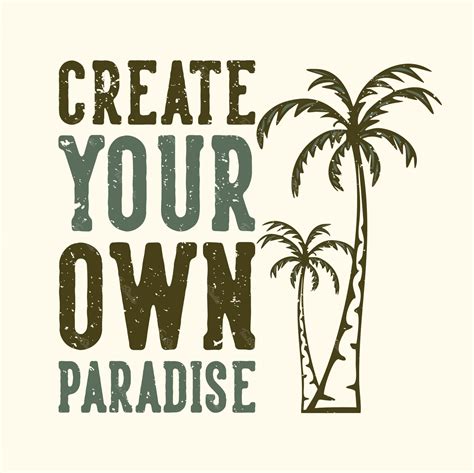
Discover Bahamas-Inspired Fonts: Tropical Typography
Hey there, design enthusiasts and creative folks! Ever found yourself staring at a blank canvas, desperately searching for that perfect font that screams sunshine, white sand beaches, and crystal-clear turquoise waters? Well, guys, you’re in for a treat! We’re about to dive deep into the vibrant world of Bahamas-inspired fonts , exploring how tropical typography can totally transform your projects, making them pop with island charm and laid-back elegance. Forget boring default typefaces; it’s time to infuse your designs with the spirit of paradise! Whether you’re crafting a new brand identity, designing stunning invitations for a beach wedding, or just sprucing up your social media, choosing the right Bahamas-themed font can make all the difference. These fonts aren’t just letters; they’re an experience, a whisper of warm breezes, and a splash of vibrant culture. They evoke feelings of relaxation, luxury, and adventure, making them incredibly powerful tools in your design arsenal. We’ll explore everything from the subtle nuances that define these styles to practical tips on how to best integrate them into your workflow. So grab your metaphorical sunglasses, and let’s embark on this tropical typographic journey together! We’re not just talking about any old fonts here; we’re talking about typefaces that carry the very essence of the Bahamas—its breathtaking natural beauty, its rich cultural tapestry, and its undeniable allure. By the end of this article, you’ll be armed with all the knowledge you need to pick and use these magnificent fonts like a pro, ensuring your designs not only look good but also feel good, resonating with a genuinely joyful, sun-kissed vibe. Let’s make your designs sing with the rhythm of the islands!
Why Bahamas-Inspired Fonts Are Your Next Design Secret
Bahamas-inspired fonts aren’t just a trend; they’re a vibe , an entire aesthetic encapsulated in curves and serifs. When you choose a font that channels the spirit of the Bahamas, you’re not just selecting a typeface; you’re inviting a whole world of warmth, relaxation, and exotic beauty into your design. Think about it: what feeling does the word “Bahamas” conjure up for you? Probably sun-drenched beaches, swaying palm trees, vibrant coral reefs, and perhaps a refreshing cocktail in hand, right? These fonts aim to capture exactly that feeling, translating the sensory experience of the islands into visual form. They bring a unique blend of casual elegance and playful charm, making your design instantly more inviting and memorable. For businesses, this means creating a brand identity that instantly resonates with luxury, vacation, and escape—perfect for travel agencies, resorts, beachwear brands, or even anyone looking to add a touch of summery cheer to their marketing materials. Imagine a logo for a boutique hotel, crafted with a graceful script font that subtly hints at ocean waves and gentle breezes; it immediately transports your audience, telling a story before they even read a single word. This isn’t just about pretty letters; it’s about strategic storytelling through typography. The subtle nuances in a Bahamas-inspired font—perhaps a slightly elongated tail on a ‘y’, or a gentle curve on a ’s’ that mimics a breaking wave—can evoke powerful emotions and associations. They are designed to stand out from the generic, often overused typefaces, giving your project a distinctive edge. Moreover, in an increasingly crowded digital landscape, uniqueness is paramount. A truly distinctive font can become a signature element of your brand, making you instantly recognizable and helping you forge a deeper connection with your audience. These fonts are often characterized by their organic flow, sometimes with a touch of whimsy, or a sophisticated script that suggests handwritten notes from a tropical getaway. They are versatile too, working beautifully across various mediums, from sophisticated print ads to vibrant social media graphics. So, guys, if you’re looking to infuse your designs with an undeniable sense of paradise, a dash of luxury, and a whole lot of personality, then diving into the world of Bahamas-inspired fonts is definitely your next smart move. They don’t just communicate words; they communicate an entire experience, a dream of island life that captivates and charms. It’s about creating an emotional connection, transforming a simple piece of text into an artistic expression of paradise, one elegant character at a time. Seriously, these fonts are like a mini-vacation for your eyes and your audience’s perception. They have the power to elevate a mundane message into something truly special and unforgettable.
Unpacking the Charm: What Makes a Font Truly Bahamian ?
So, what actually makes a font feel Bahamian or tropical ? It’s not just about slapping a palm tree emoji next to some text, guys! It’s a thoughtful blend of specific design elements, cultural influences, and a certain visual language that evokes the warmth and beauty of the islands. The essence of Bahamian typography lies in its ability to transport you, to make you feel the sun on your skin and the sand between your toes, simply by looking at the characters. Often, these fonts draw inspiration from natural elements: the gentle curves of ocean waves, the swaying fronds of a palm tree, the smooth texture of seashells, or the vibrant hues of tropical flora. You’ll notice many Bahamas-inspired fonts feature soft, flowing lines, avoiding harsh angles or rigid structures. Script and handwritten styles are particularly popular because they convey a sense of personal touch, relaxation, and unhurried island life. Imagine a handwritten postcard from a Bahamian getaway – that’s the kind of authentic, inviting feel these fonts aim for. They often have a relaxed baseline, a slightly imperfect, organic quality that feels handmade and genuine. Beyond script, you might find sans-serif fonts with rounded edges, a touch of casualness, or even decorative elements that subtly incorporate island motifs like a tiny flourish resembling a fish fin or a sunburst. Color, while not directly part of the font’s design, plays a huge psychological role in how we perceive tropical typography. When you pair a flowing, Bahamas-themed font with a palette of ocean blues, sandy beiges, coral pinks, and lush greens, the effect is amplified, creating an undeniable island aesthetic. The cultural aspect also plays a significant role. The Bahamas has a rich history, blending African, European, and indigenous influences. This cultural melting pot can subtly inform font design, perhaps through intricate patterns, bold strokes, or a celebratory rhythm in how the letters interact. Think of the vibrant Junkanoo parades – while fonts don’t directly replicate that, they can capture a sense of lively celebration and unique artistry. Furthermore, the overall legibility and friendliness of these fonts are key. They are generally designed to be approachable and easy on the eyes, mirroring the welcoming nature of the Bahamian people and the relaxed pace of island life. They communicate a message of comfort, enjoyment, and beauty, making them perfect for any project that aims to evoke a positive, escapist feeling. The goal is to create a visual harmony that, even without explicit imagery, tells a compelling story of sun-soaked days and starlit nights. It’s truly fascinating how a collection of letters can carry so much character and convey such a specific, enchanting atmosphere. So, next time you’re browsing for a font, try to see if it whispers “island breeze” to you; that’s when you know you’ve found a truly Bahamian gem.
Dive Into Styles: Top Bahamas Themed Fonts for Every Project
Alright, folks, now that we’ve got a handle on why Bahamas-inspired fonts are so awesome and what makes them tick, let’s explore some of the specific styles you can hunt down for your next project. This isn’t a one-size-fits-all situation; the world of tropical typography is as diverse as the Bahamian archipelago itself! Each style offers a different flavor of island charm, allowing you to perfectly match the tone and message of your design. Whether you’re aiming for sophisticated luxury, playful fun, or organic simplicity, there’s a Bahamas-themed font out there just waiting to make your vision come alive. We’re going to break down some of the most popular and effective categories, giving you a clearer idea of what to look for and how each type can be uniquely applied. From elegant scripts that whisper tales of grand resorts to bold display fonts that shout “adventure,” the options are truly exciting. Get ready to discover your new favorite typeface!
Effortless Elegance : Script and Handwritten Bahamian Fonts
When we talk about capturing that quintessential Bahamas island charm , script and handwritten fonts are often the first to come to mind, and for good reason, guys! These typefaces exude a personal, bespoke feel that instantly conjures images of handwritten postcards, exclusive resort branding, or elegant beach wedding invitations. The beauty of Bahamian script fonts lies in their fluidity and organic movement, often featuring ligatures and swashes that mimic the gentle ebb and flow of ocean waves or the graceful curves of palm fronds in the breeze. They aren’t rigid or mechanical; instead, they have a natural, almost spontaneous quality that feels incredibly inviting and authentic. Think about the feeling of luxury and personalization you get from a beautifully penned note – that’s the essence these fonts deliver. They work wonders for projects that require a touch of sophistication mixed with a relaxed, vacation-like vibe. Picture a high-end travel brochure, a logo for a boutique beach hotel, or the masthead of a lifestyle blog focusing on exotic destinations. The soft, connecting strokes and varied baselines often found in these fonts give them a dynamic, lively character, ensuring that your text never looks static or dull. Many handwritten Bahamas fonts incorporate a slightly whimsical or imperfect touch, which only adds to their charm and authenticity, suggesting a human element that’s often missing in more sterile, geometric typefaces. This subtle imperfection makes them feel more approachable and genuine, like a friendly local welcoming you to their island home. They are fantastic for conveying warmth, intimacy, and a sense of effortless style. However, a word to the wise: while gorgeous, script fonts can sometimes be less legible for large blocks of text, especially at smaller sizes. They truly shine when used for headings, subheadings, logos, short quotes, or signature elements where their intricate details can be appreciated without hindering readability. When selecting one, consider its overall readability and how well its unique flourishes complement your brand’s message. Pair them with a clean sans-serif for body text, and you’ve got a winning combination that balances flair with function, creating a cohesive and utterly enchanting design that truly encapsulates the effortless elegance of a Bahamian escape. So, if you’re aiming for a design that feels both luxurious and genuinely warm, these script and handwritten beauties are definitely your go-to!
Bold & Beautiful : Sans-Serif and Modern Tropical Typefaces
Not every Bahamas-inspired font needs to be a flowing script, guys! For those who prefer a more contemporary, impactful, yet still decidedly tropical aesthetic, bold sans-serif and modern typefaces are absolute game-changers. These fonts bring a fresh, clean, and strong presence to your designs, proving that tropical typography can be both sophisticated and strikingly modern. Unlike their serif counterparts or ornate scripts, sans-serif fonts lack the small decorative strokes at the ends of characters, resulting in a minimalist and clean appearance. When imbued with a Bahamian twist, these fonts often feature gently rounded corners, slightly wider letterforms, or a casual baseline that softens their typically crisp lines, preventing them from feeling too rigid or corporate. This subtle tropicalization allows them to retain their modern appeal while still evoking the relaxed, sunny feel of the islands. Imagine a sleek, minimalist travel poster advertising a luxury resort, or a vibrant e-commerce website selling eco-friendly beachwear; a strong, yet approachable Bahamas-themed sans-serif font would be perfect here. These typefaces excel at readability, making them ideal for headlines, calls to action, and even substantial blocks of body text where clarity is paramount. Their modern aesthetic makes them incredibly versatile for digital platforms, ensuring your message stands out on screens of all sizes, from mobile phones to large billboards. Furthermore, many modern tropical sans-serifs incorporate a sense of robust construction that can symbolize the strength and resilience of island nature, or the solid foundation of a well-established brand. They can convey a sense of adventure and exploration without resorting to overly literal imagery. Think about a vibrant, bold font used for a water sports company logo – it communicates energy, dynamism, and a clear message without being overly fussy. When choosing a bold and beautiful modern tropical typeface, look for ones that have character in their simplicity. Perhaps a unique curve in the ‘Q’, a slightly extended crossbar on the ’T’, or an overall slightly expanded width that gives the letters a more relaxed, unhurried feel. These subtle design choices are what elevate a regular sans-serif to one that truly embodies the spirit of the Bahamas. They are excellent for creating a strong visual hierarchy, drawing the eye to key information, and making a powerful, memorable statement that is both on-trend and deeply evocative of island paradise. So, if your project demands a blend of strength, clarity, and an undeniable touch of tropical cool, these modern sans-serif fonts are your secret weapon.
Unique & Playful : Display and Decorative Island Fonts
For those moments when you really want your design to shout “party in paradise!” or whisper “exotic adventure,” display and decorative island fonts are your ultimate creative playground, guys! These are the showstoppers, the conversation starters, the fonts that go beyond mere readability to become artistic elements in themselves. Unlike the more subtle scripts or clean sans-serifs, unique Bahamian decorative fonts are designed to be bold, distinctive, and often incorporate literal or abstract island motifs directly into their letterforms. This is where you’ll find typefaces with charming little flourishes that might resemble fish, palm trees, seashells, ocean waves, or even patterns inspired by traditional Bahamian crafts and art. They are fantastic for grabbing attention and infusing your project with an immediate, unmistakable sense of fun, whimsy, and thematic flair. Imagine designing a poster for a tropical festival, the cover of a travel magazine, merchandise for a beach-themed event, or a playful logo for an island-themed restaurant or bar. These fonts are made for such impactful, visually rich applications. Their uniqueness means they stand out dramatically, making your design instantly memorable and engaging. They tell a story at first glance, inviting viewers into the vibrant, carefree world of the Bahamas. However, a crucial point about playful display fonts is their intended use: they are best suited for headings, titles, large graphic elements, or short, impactful phrases. Due to their intricate details and often unconventional letterforms, they can become difficult to read in smaller sizes or in long blocks of text. Their strength lies in their ability to make a strong visual statement, not in conveying large amounts of information. Therefore, pairing them effectively with a more legible companion font (perhaps a clean sans-serif or a simple script) for body text is key to a balanced and effective design. When choosing a decorative island font , look for one that aligns perfectly with the specific aspect of Bahamian culture or nature you want to highlight. Do you want something whimsical and hand-drawn, or something more ornate and historically inspired? The options are endless, ranging from playful bubble letters that feel like a dip in the ocean to intricate fonts that echo the delicate beauty of coral. These fonts are about celebrating the vibrant spirit of the islands in the most creative and visually exciting way possible, allowing your design to truly embody the unique and playful energy of a Bahamian getaway. So go wild, experiment, and let these decorative gems infuse your projects with an unforgettable dose of island magic!
Mastering the Mix: Integrating Tropical Typography into Your Design Workflow
Okay, awesome designers, now that you’re totally inspired by the diverse world of Bahamas-inspired fonts , let’s talk practicalities: how do you actually integrate these tropical typography gems into your everyday design workflow like a pro? It’s not just about picking a pretty font; it’s about making smart choices that enhance your overall design and effectively communicate your message. First things first, guys, context is king . Before you even start browsing, think about the specific purpose and audience of your project. Is it a high-end luxury brand, a fun casual event, or an informative blog post? The tone you want to set will dictate whether a graceful script, a bold sans-serif, or a whimsical display font is most appropriate. For instance, a resort logo might benefit from an elegant script to convey luxury, while a beach bar menu might rock a more playful, hand-drawn display font. Next, font pairing is crucial . Very rarely will you use just one font in a design. The secret to a visually harmonious and effective design often lies in how well your chosen Bahamas-themed font plays with others. A common and effective strategy is to pair a decorative or script tropical font (which grabs attention for headings and logos) with a simpler, highly legible sans-serif or serif font for body text. This creates a clear visual hierarchy and ensures readability. For example, a flowing Bahamian script title paired with a clean, modern sans-serif for descriptions maintains the island vibe without sacrificing clarity. Experiment with contrasting weights and styles – a bold display font with a light, airy sans-serif, for instance. Color palettes also significantly impact how your tropical typography is perceived. While the font itself is black and white, the colors you apply to it, and the background it sits on, amplify its effect. Think about traditional Bahamian colors: vibrant turquoises, deep ocean blues, coral pinks, sun-kissed yellows, and sandy neutrals. Using these hues with your island fonts will reinforce the tropical theme, even if the font itself is subtly designed. Don’t be afraid to use transparency or texture overlays on your text for an even richer, more immersive effect. Accessibility and readability should always be top of mind. While those intricate decorative fonts are stunning, remember their primary role: for impact, not for extended reading. Always test your chosen Bahamas fonts at various sizes and on different devices to ensure they remain clear and legible, especially for important information. For web design, consider font loading times and choose web-safe alternatives or optimize custom fonts. Finally, where to find these fonts ? Many high-quality Bahamas-inspired fonts can be found on reputable font marketplaces (like Creative Market, Font Bundles, MyFonts, or Envato Elements) or even through independent type designers. Some excellent free options exist on sites like Google Fonts or DaFont, but always double-check the licensing for both personal and commercial use. Investing in a good quality font package can significantly elevate your brand’s aesthetic. Remember, guys, the goal is to make your design feel like a mini-vacation, effortlessly chic and wonderfully inviting. By thoughtfully integrating these tropical typography elements, you’re not just designing; you’re crafting an experience, one beautiful character at a time.
Your Journey with Island Fonts : Final Thoughts & Creative Call
And there you have it, fellow creatives! We’ve journeyed through the sunny shores of Bahamas-inspired fonts , exploring their undeniable charm, diverse styles, and practical applications. Hopefully, you’re now buzzing with ideas and ready to infuse your next design project with that irresistible tropical typography magic! Remember, the power of a Bahamas-themed font goes far beyond mere aesthetics; it’s about evoking emotions, telling stories, and creating an instant connection with your audience, transporting them straight to a serene, sun-drenched paradise. Whether you opt for the elegant fluidity of a script font, the modern impact of a bold sans-serif, or the playful whimsy of a decorative typeface, each choice offers a unique opportunity to express the vibrant spirit of the islands. Don’t be afraid to experiment, guys! Mix and match different styles, play with color palettes inspired by the ocean and sunsets, and really let your creativity flow. Think about the overall experience you want to create, and let your font choices guide that narrative. Tropical typography isn’t just a niche; it’s a versatile tool that can elevate a wide array of projects, from personal invitations and greeting cards to professional branding, website design, and marketing campaigns. Imagine the delight on someone’s face when they receive an event invitation designed with a font that perfectly captures the breezy, celebratory feel of a beach party! Or the instant recognition a brand achieves when its logo uses a truly unique island font that embodies escape and luxury. This journey into island fonts is an invitation to think beyond the ordinary, to embrace designs that are rich in character and full of life. It’s about making your work not just seen, but felt . So, go forth and explore! Download some samples, test them out, and see how these beautiful typefaces can breathe new life into your creations. We encourage you to seek out independent type designers who often craft unique, high-quality Bahamas-inspired fonts with incredible passion and attention to detail. Support their artistry, and you’ll find truly distinctive gems for your toolkit. Let your designs be a mini-vacation for everyone who sees them, a little slice of Bahamian heaven in every character. Your creative adventure with tropical typography has just begun, and the possibilities are as endless and beautiful as the Bahamian horizon. What are you waiting for? Dive in and start designing your next masterpiece with the captivating allure of the islands!